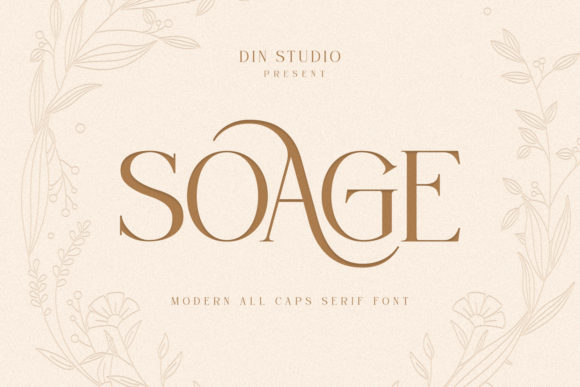
Introducing Soage Font, the Best Font For Speech Script! Created by Din Studio, this elegant and thin lettered serif font is the ultimate choice for anyone seeking to elevate their creative projects. With its captivating design and endless possibilities, Soage Font is set to become your go-to font for all your design needs.
Soage Font is not just your average serif font. It is a masterpiece meticulously crafted to perfection, ensuring that each letter exudes sophistication and elegance. The slim and graceful strokes of this font make it a perfect companion for any project that requires a touch of class.
Whether you're designing a wedding invitation, a logo, or a magazine cover, Soage Font will effortlessly elevate your work to new heights. Its timeless appeal and versatility allow it to adapt to any style or theme, making it suitable for both modern and traditional designs.
But what sets Soage Font apart from the rest? It's not just its stunning appearance, but also the emotions it evokes. When your audience lays eyes on your project, they will be captivated by the charm and grace that Soage Font brings. It creates a sense of sophistication and professionalism, instantly leaving a lasting impression.
With Soage Font, the possibilities are endless. Its versatility allows you to experiment and explore various design options, enabling you to create unique and eye-catching visuals. Whether you want to convey elegance, romance, or creativity, Soage Font effortlessly adapts to your vision, making it the perfect tool for expressing your ideas.